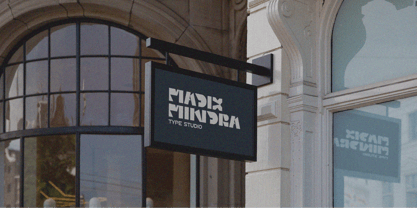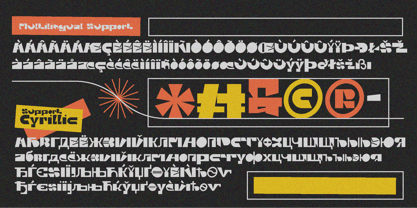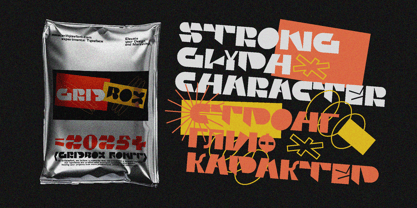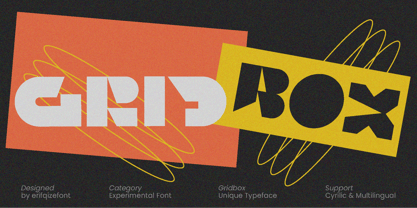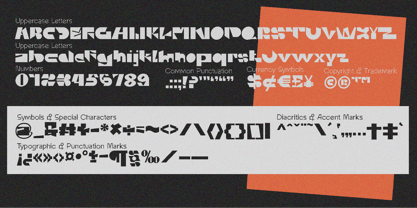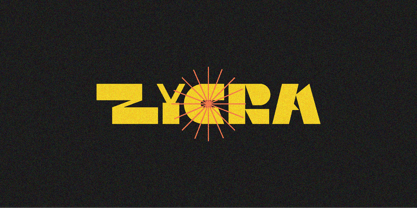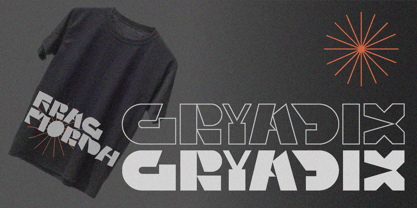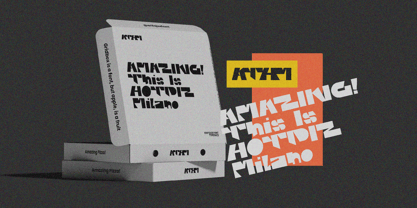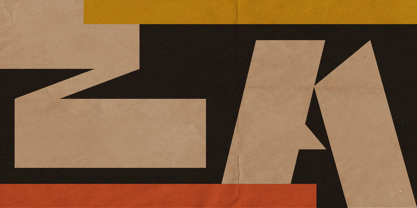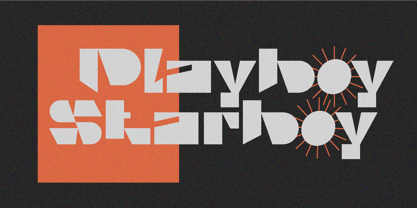
Gridbox
by Erifqizefont
The Gridbox Font Family was designed by Eka Rifqi Setiawan and published by Erifqizefont. Gridbox contains 2 styles and family package options.
GRIDBOX — Experimental Typeface
GRIDBOX is an experimental typeface that stands out with bold and distinctive characters. Designed with a unique approach, each glyph carries a strong, unconventional personality, blending sharp geometry with innovative form. The result is a modern, edgy font perfect for projects that demand visual impact and originality.
This typeface comes in two styles: Regular and Italic, offering versatility for dynamic design needs. Whether you’re crafting futuristic branding, striking posters, digital artworks, or avant-garde editorials, GRIDBOX delivers a powerful and memorable visual statement.
Key Features:
• Two styles: Regular & Italic
• Unique and strong character design
• Experimental geometric structure
• Multilingual & Cyrillic support
• Ideal for posters, branding, album covers, and creative displays